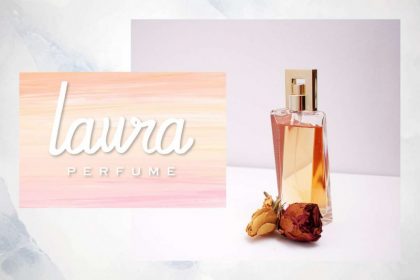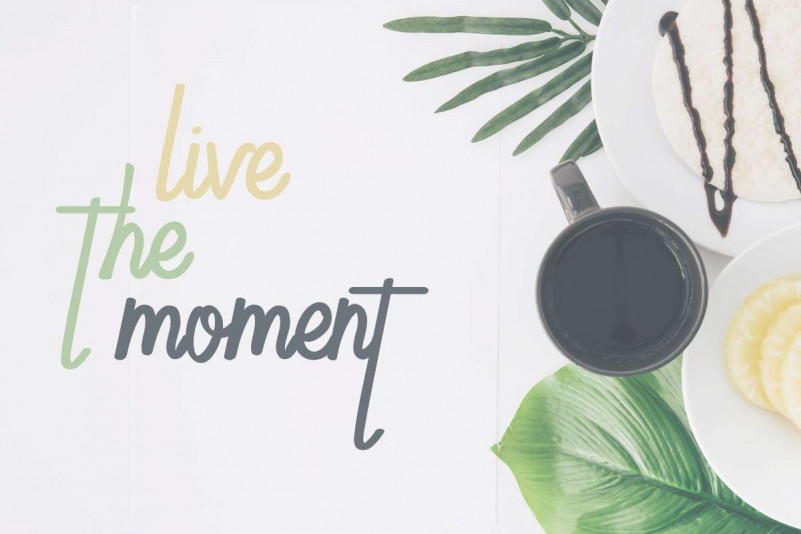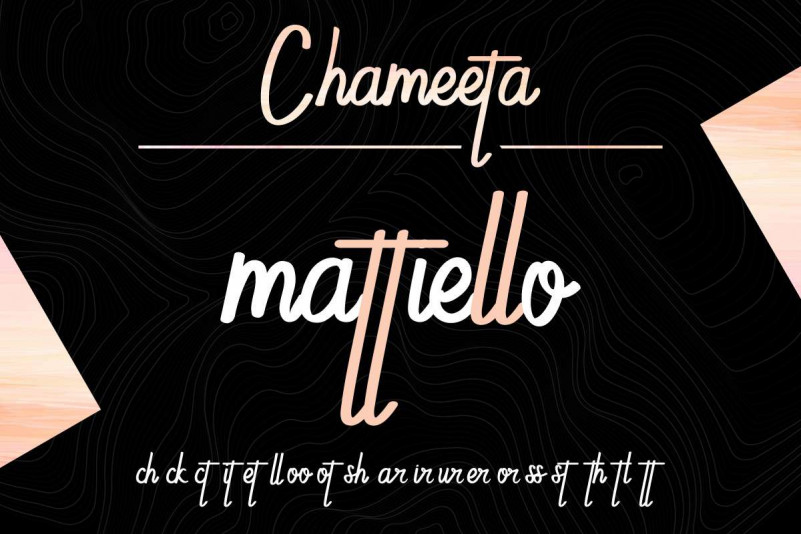
Chameeta Handwritting Font
Welcome Everyone! We, Edric Studio Presents to you : Chameeta Handwritting Font It is a calligraphy script font family made with love and integrity in West Java-Indonesia. 😉 Chameeta Font was made in 2019. This font has stunning glyphs/Characters. It also support multi international languages letters. Chameeta Font will be awesome for all your designs, presentation or advertising projects. It will work on any designs software like : Adobe photoshop, Adobe illustrator, CorelDraw etc . Also it works on office software too, like : microsoft word etc